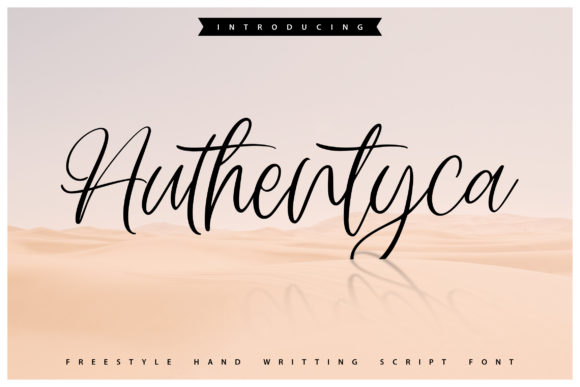
The Elegance of Authentyca Font: A Designer’s Delight
I’ll never forget the time I was working on a wedding invitation project, and my client asked for a font that would make their special day feel truly unique and elegant. I scoured the internet, trying out font after font, but nothing seemed quite right. That was until I stumbled upon Authentyca Font. 🌟
It was love at first sight! Authentyca’s flowing lines, gorgeous glyphs, and stunning alternates immediately caught my eye. I knew I had found the perfect fit for my client’s project. In this article, I’ll share my experience with Authentyca Font, its features, and how to make the most of it in your designs.
An Honest Review of Authentyca Font
- ✨ Elegant and flowing lines that add a touch of sophistication to any design
- ✅ Features a varying baseline, which gives it a natural, handwritten feel
- 💫 Smooth lines and gorgeous glyphs that make it perfect for quotes, greeting cards, and more
- 🎉 Stunning alternates that allow for endless creative possibilities
While Authentyca Font is a beautiful addition to any design, there are a few things to keep in mind:
- ⚠️ Some users may find the font’s varying baseline a bit challenging to work with, especially when it comes to aligning text.
- 🤔 The font’s OpenType features may not work seamlessly on all platforms or software.
The Backstory of Authentyca Font
Authentyca Font was designed with the intention of creating a beautiful, elegant script font that would add a touch of sophistication to any design. The font’s creator drew inspiration from classic calligraphy and modern typography to create a unique and versatile font that’s perfect for a wide range of design applications.
Q: What is Authentyca Font best used for?
A: Authentyca Font is perfect for designs that need a touch of elegance and sophistication, such as wedding invitations, thank you cards, quotes, greeting cards, logos, and business cards.
Q: Is Authentyca Font easy to read?
A: Yes, Authentyca Font is designed to be easy to read, even at small sizes. However, its elegant and flowing lines may make it more suitable for display text rather than body text.